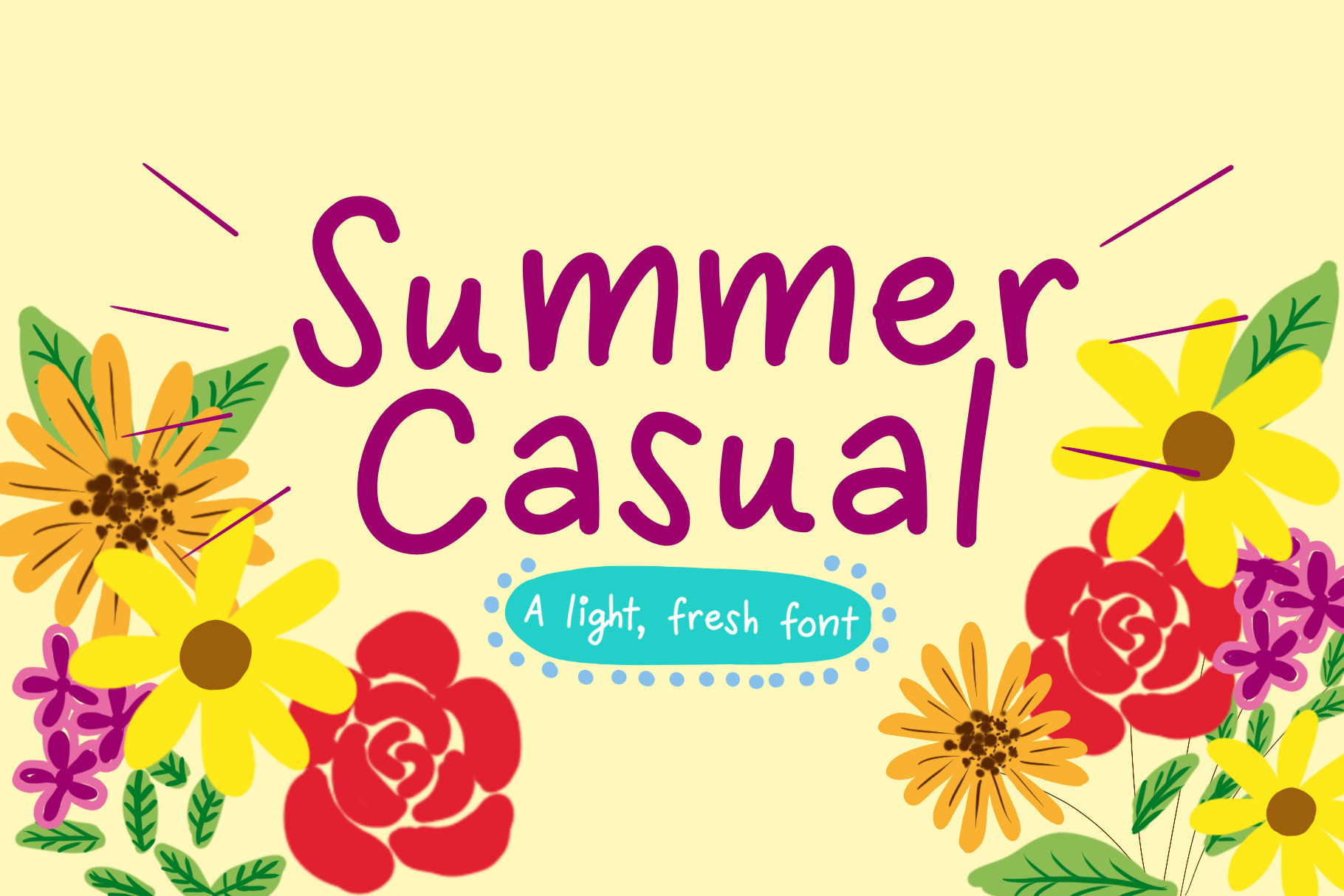
Summer Casual Font
Light, airy, and fun handwritten font that screams out CAREFREE! Summer Casual is perfect all year round for all occasions!
- All uppercase
- All lowercase
- Numerals and punctuation
- European language characters